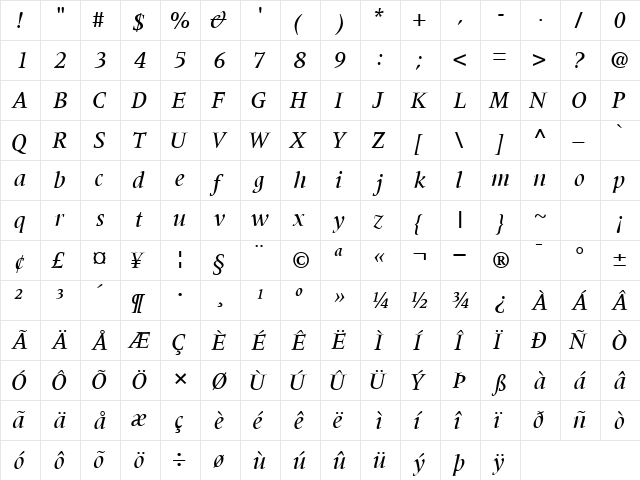
CoherentMediumSSK Italic
Design Context for CoherentMediumSSK Typeface
CoherentMediumSSK takes a measured approach to typography — its balanced proportions and neutral character make it a reliable workhorse for both digital and print work. Its italic angle brings a sense of urgency and motion to the letterforms.
Pro Tip: Try CoherentMediumSSK for annotation and caption copy alongside an upright companion — the contrast in angle creates a dynamic but ordered typographic system.